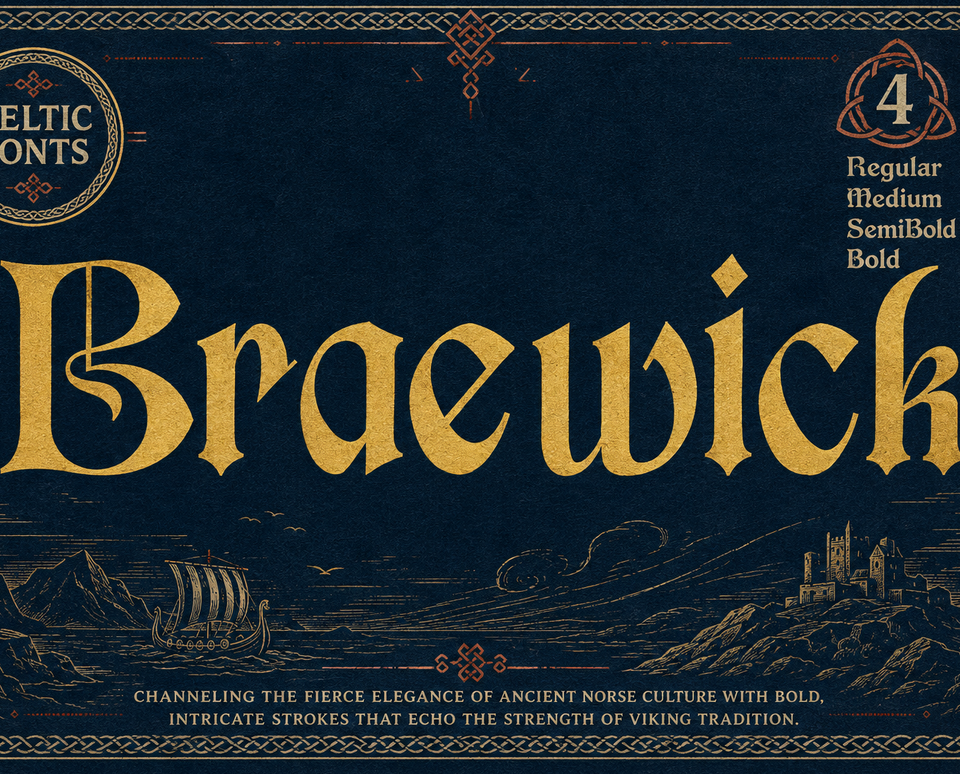
Braewick - Celtic Medieval Display Font
Braewick is a Celtic medieval display font with a rugged, distinctive character and a strong historical atmosphere. Built for memorable fantasy titles, bold headlines, and decorative lettering, this display typeface gives words the presence of an old-world inscription while remaining practical for modern design work.
Braewick is supplied as a four-style font family with Regular, Medium, SemiBold, and Bold weights. Each style includes 380 glyphs, giving you a broad character set for expressive display typography. The family supports uppercase and lowercase A-Z, numerals, punctuation, symbols, and accented characters for multilingual projects. OpenType alternates and stylistic sets add variation when you need a more individual treatment, while OpenType positioning and kerning help keep headlines and logos visually balanced.
Key Features: Four coordinated weights for flexible hierarchy and emphasis 380 glyphs per style Uppercase and lowercase characters, numerals, punctuation, symbols, and accented characters OpenType alternates and stylistic sets for decorative variation OpenType positioning and kerning for cleaner spacing OTF, TTF, WOFF, and WOFF2 files for each style Webfont-ready formats for supported web projects
Applications: Use Braewick for fantasy novel covers, historical posters, and medieval-inspired headlines. Its bold display forms are also suited to game titles, fictional worldbuilding, RPG branding, logos, apparel graphics, t-shirt designs, invitations, magazine covers, editorial features, packaging, and decorative text. Combine the weights to create a strong title and supporting line, or use the alternates to give a logo, invitation, or fantasy title a more distinctive signature.